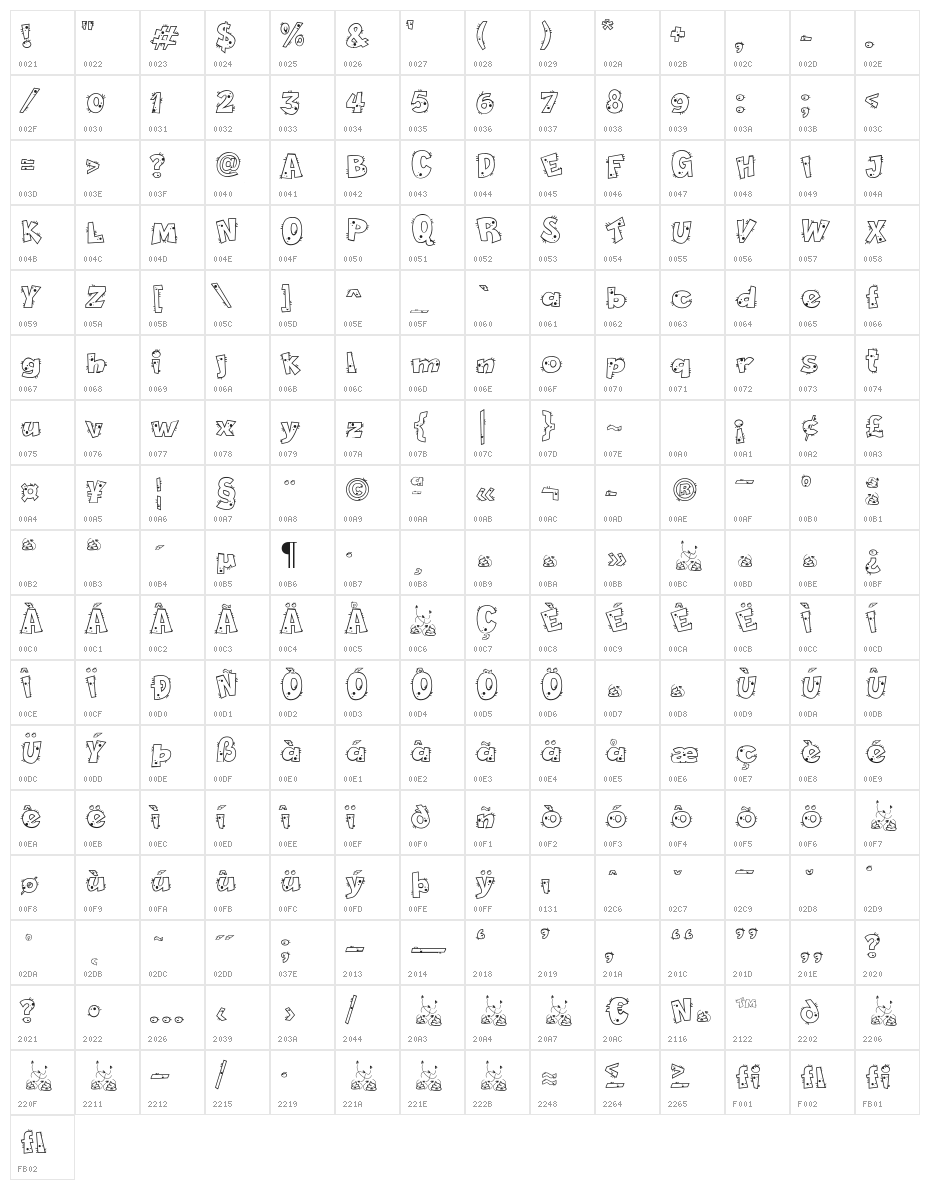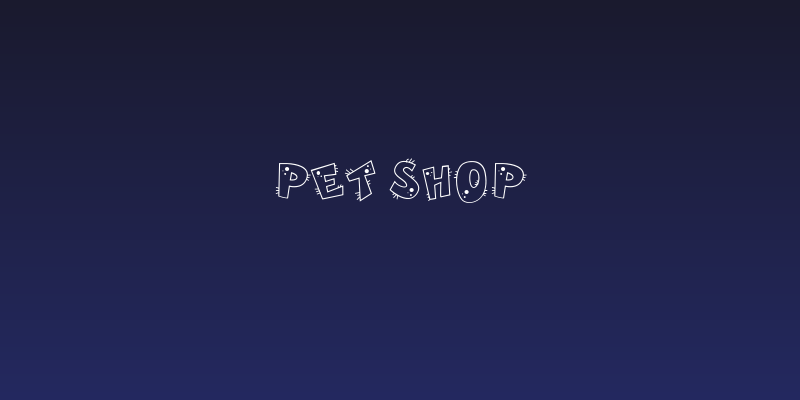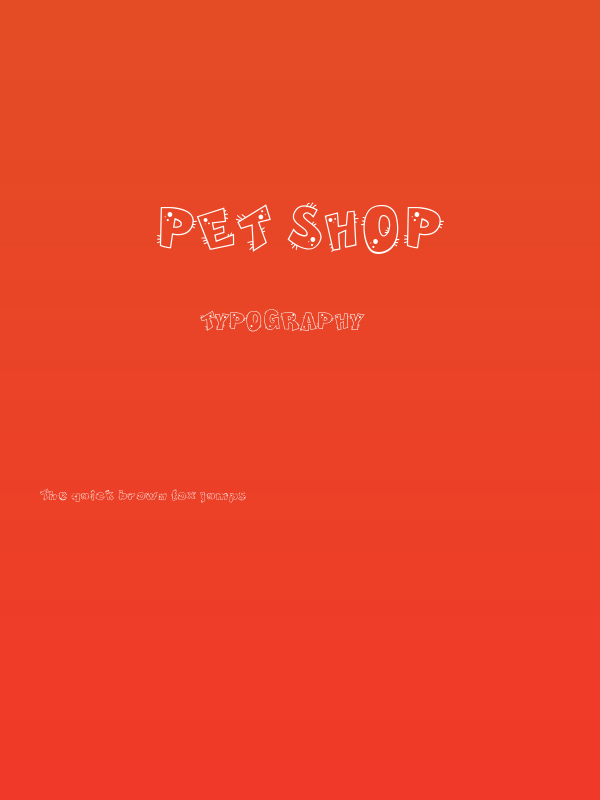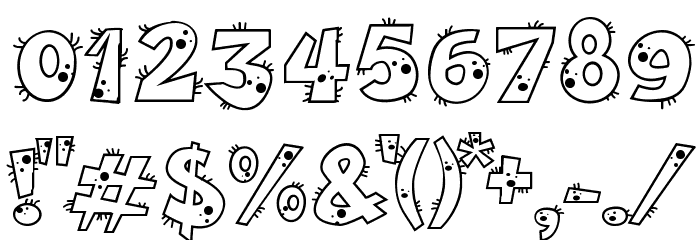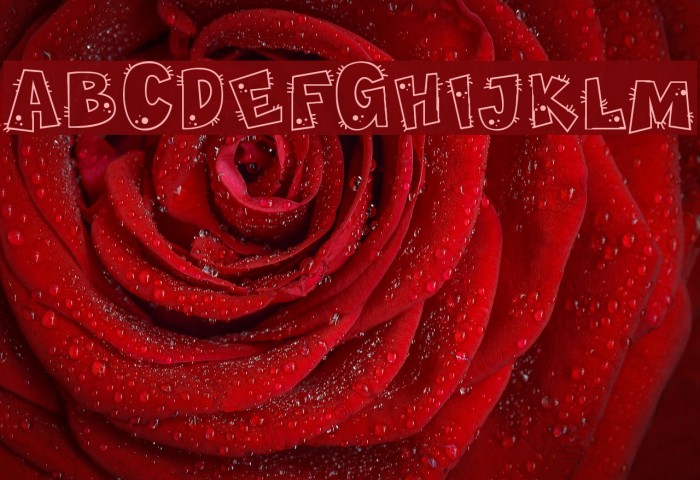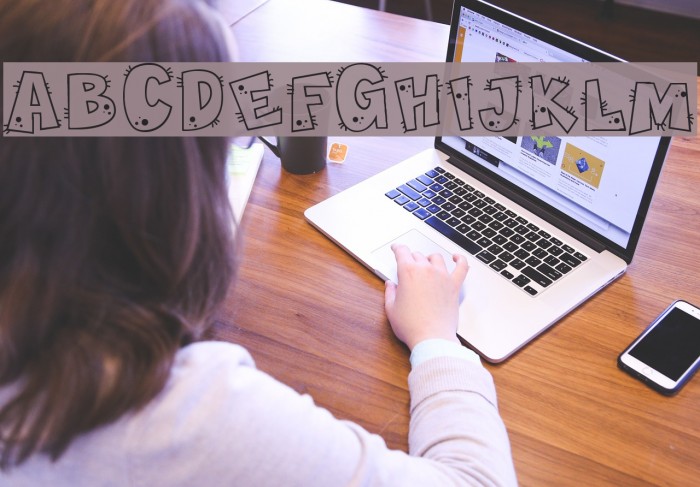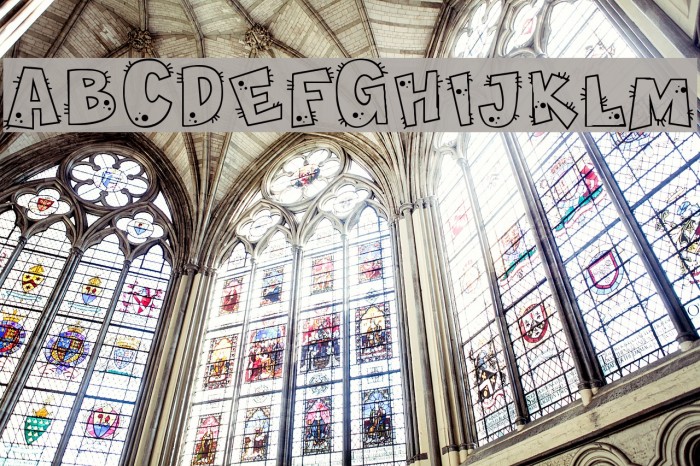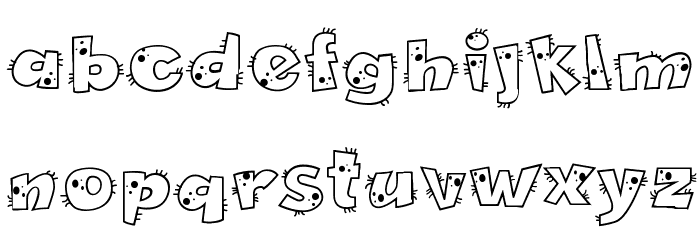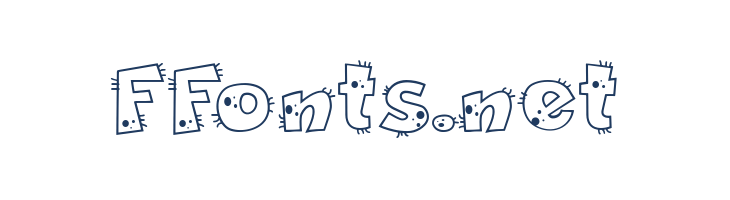
Pet Shop Font
Pet Shop Description
This playful and quirky font features bold, cartoonish letters with a fun, hand-drawn style. Each character is adorned with small, whimsical details like dots and short lines that resemble stitches or fur, adding a unique and lively touch. The font maintains a consistent thickness throughout, giving it a bold appearance, while the irregular shapes and playful embellishments make it stand out. It's perfect for projects that require a lighthearted and engaging aesthetic, such as children's books, playful branding, or creative posters.
| Overall Style | Playful, Quirky, Cartoonish |
| Proposed Projects | Ideal for children's books, playful branding, creative posters, and fun invitations. |